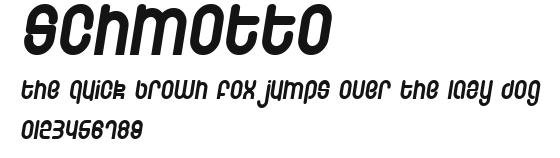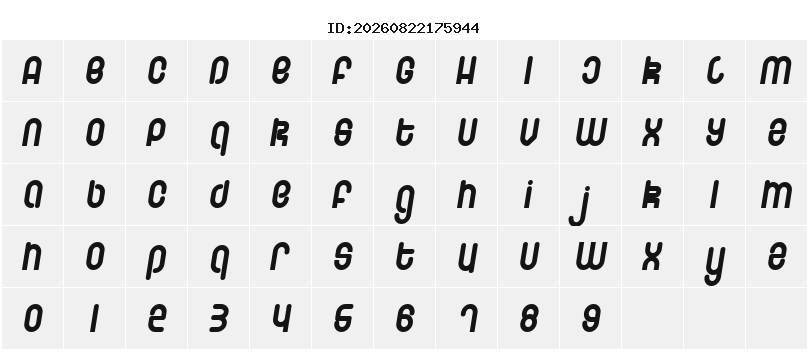
• Font Name: Schmotto
• Font Style: Plotto
• Full Font Name: Schmotto Plotto
About Schmotto.ttf
Schmotto.ttf is a modern, elegant sans-serif font designed for ultimate readability and visual harmony. Perfect for branding, headlines, web design, and print materials.